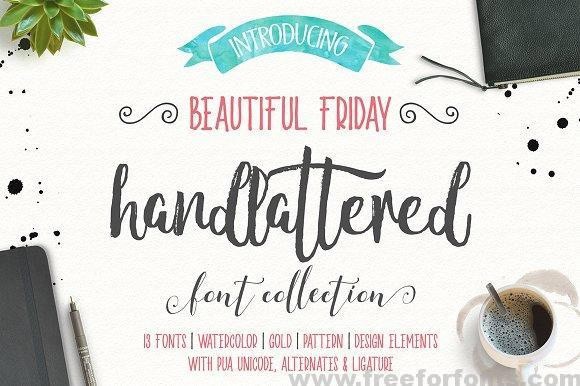
beautiful friday
Explore the Beauty of Beautiful Friday Font
Beautiful Friday Font, crafted by John Smith in 2022, combines elegance with a modern touch, making it a perfect choice for sophisticated designs. Ideal for branding initiatives, wedding invitations, and eye-catching print materials, this font ensures your projects stand out with its stylish and inviting aesthetic.
Key Features and Formats of Beautiful Friday Font
Available in OTF, TTF, and WOFF formats, Beautiful Friday Font is compatible with various design software such as Adobe Illustrator, InDesign, and Microsoft Word. Its unique cursive style enhances any design, ensuring versatility across multiple platforms.
The Inspiration Behind Beautiful Friday Font
Inspired by the joy and relaxation associated with the end of the week, Beautiful Friday Font was designed to evoke feelings of warmth and creativity. John Smith’s passion for typography shines through its flowing lines and distinctive characters, making it a backdrop for impactful storytelling.
Applications for Beautiful Friday Font
Whether you’re working on websites, branding projects, or printed invitations, Beautiful Friday Font excels in delivering a personal touch. Its elegance and legibility make it suitable for both digital and print mediums, perfect for projects that aim to impress and engage audiences.